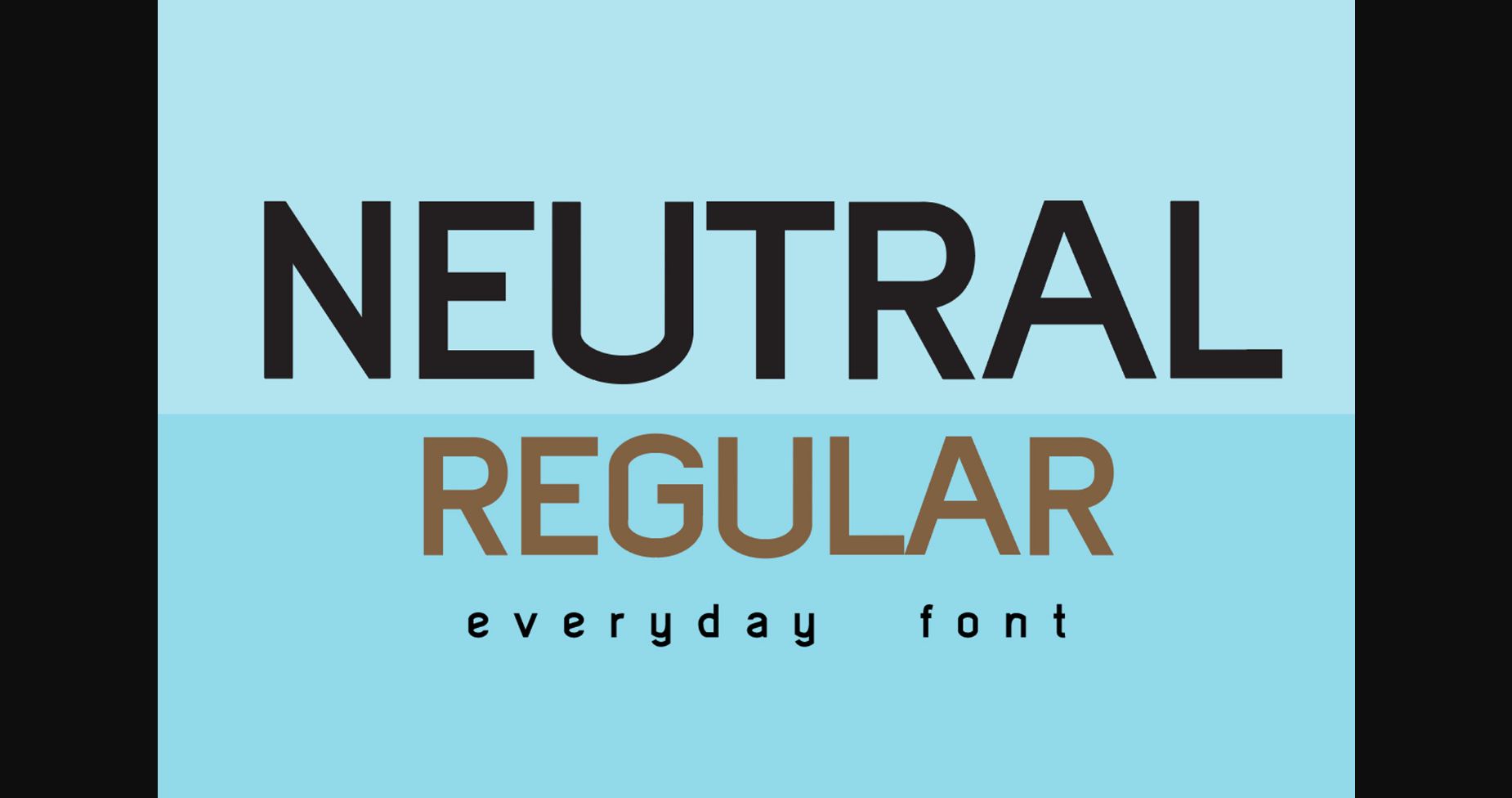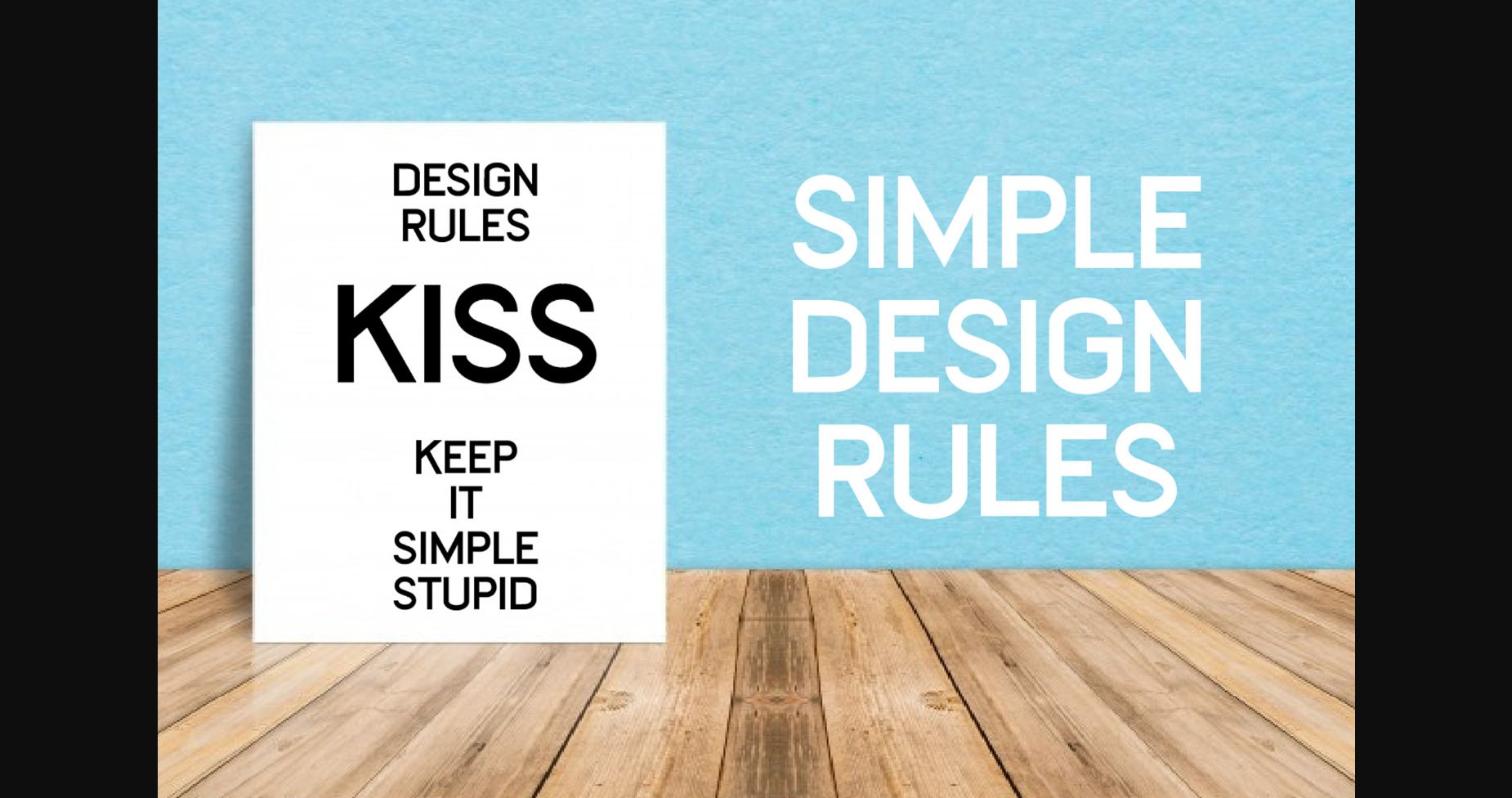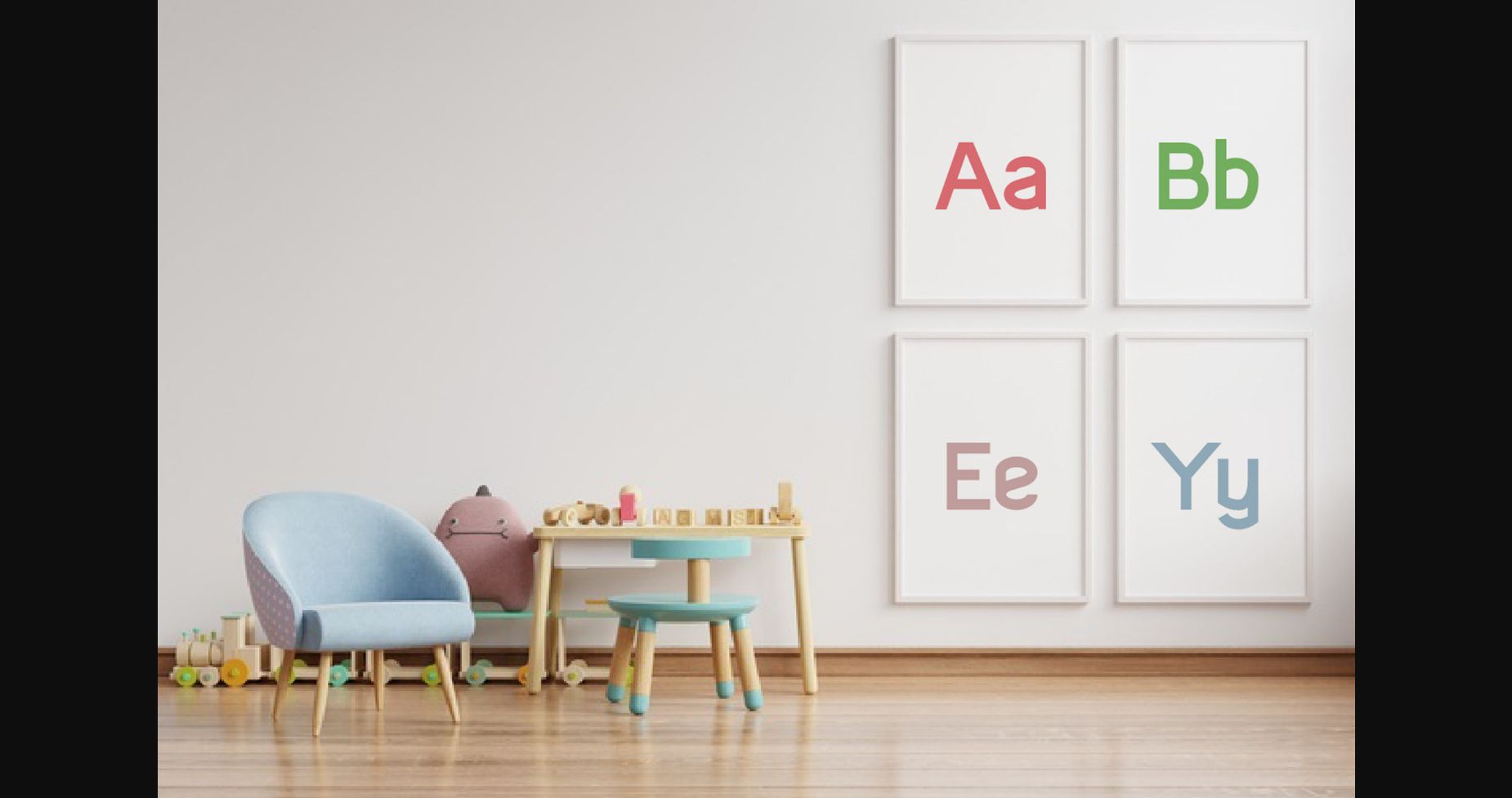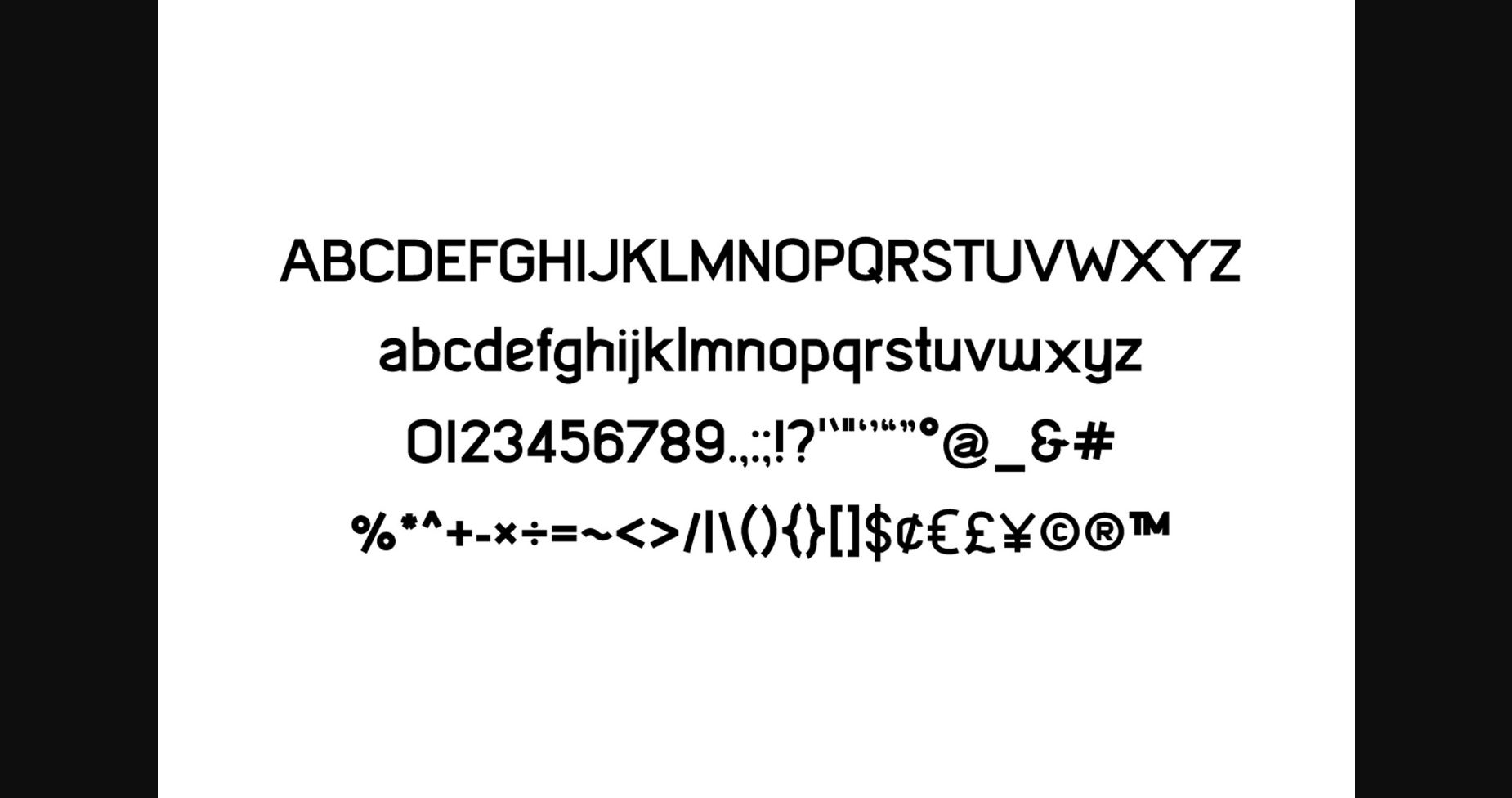
HomeSans Serif FontsNeutral Font Sans Serif Fonts Neutral Font FacebookXPinterestWhatsApp 1 of 7 ... Neutral Font Poster 2... Neutral Font Poster 3... Neutral Font Poster 4... Neutral Font Poster 5... Neutral Font Poster 6... Neutral Font Poster 7... About Neutral Font Neutral is a minimal and neat sans serif font. It can easily be matched to an incredibly large set of projects, so add it to your creative ideas and notice how it makes them stand out! DOWNLOAD NOW People also explored Rosecity Font Six Away Font Salmah Font Starship Font The Bakery Font Phyton Font Ferryman Takalon Font Lobster Font 288 0 TagsNeutralNeutral Font Previous articleKumquat FontNext articleNeutral Light Font LEAVE A REPLY Cancel reply Comment: Please enter your comment! Name:* Please enter your name here Email:* You have entered an incorrect email address! Please enter your email address here Website: Save my name, email, and website in this browser for the next time I comment. Personal Use Free Valentine Chips Personal Use Free Read more about this font Mini Story Personal Use Free Read more about this font Mueband Personal Use Free Read more about this font Denisha Personal Use Free Read more about this font BLOG How to Install and Use Fonts on Windows, macOS, and Web Projects How to Install and Use Fonts on Windows, macOS, and Web Projects Fonts are a crucial part of design and branding. Whether you’re designing a... Using Fonts in Digital Marketing: Tips to Strengthen Your Brand Identity Elegant Wedding Invitation Fonts – Handwritten & Script Fonts To increase your work productivity, choose the most readable fonts.